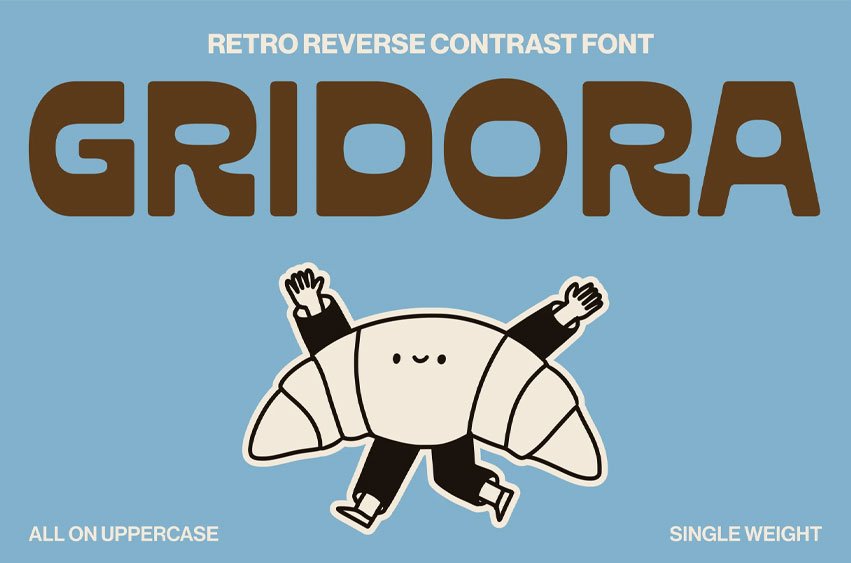
Gridora Font
Gridora Font is a bold retro display font inspired by vintage signage, futuristic geometry, and playful modular typography. Perfect for branding, posters, packaging, café logos, editorial headlines, gaming, and creative projects.
Featuring strong uppercase characters, stylish numerals, and unique rounded forms, Gridora delivers eye-catching personality, nostalgic energy, and standout visual impact.